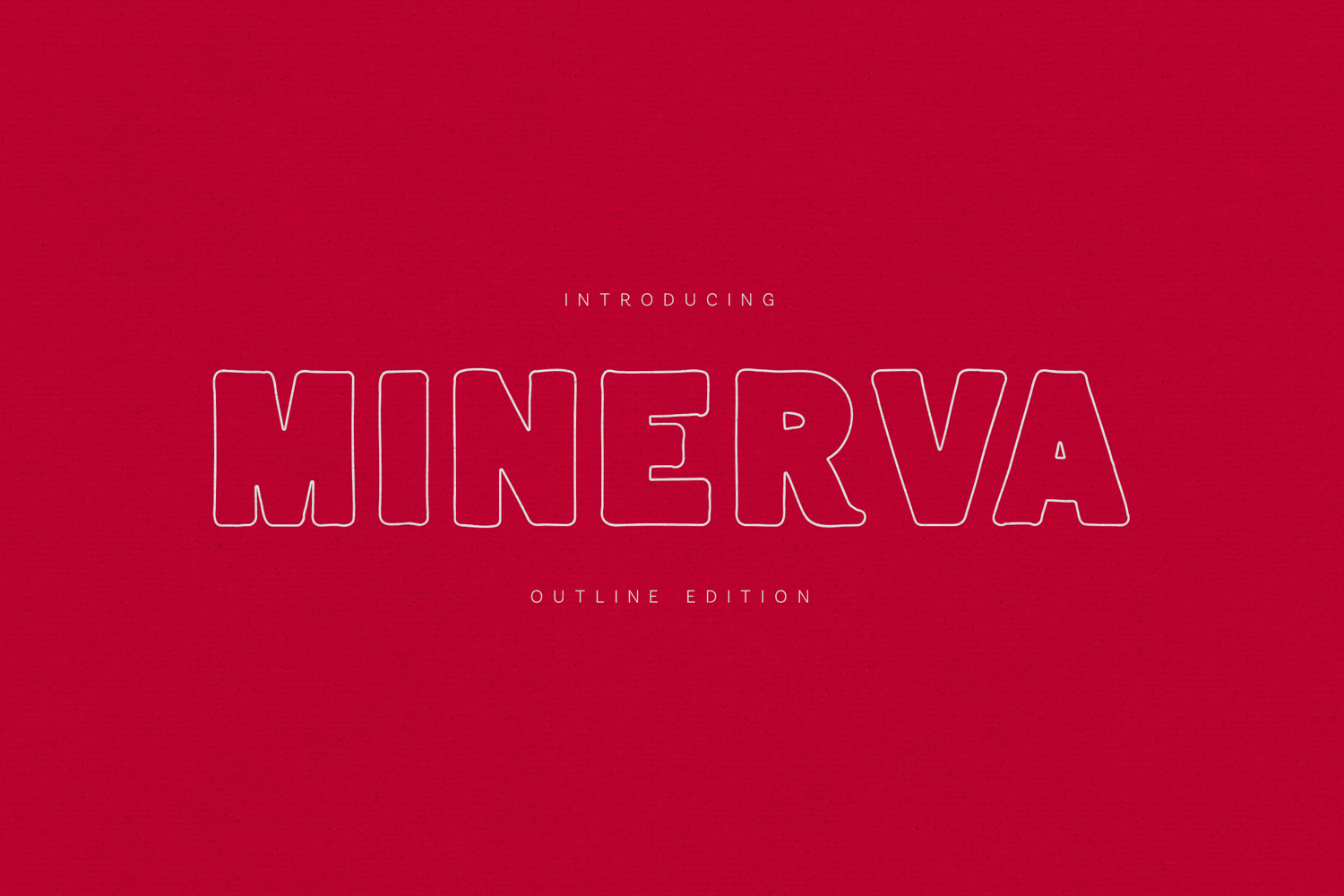
Minerva Bold Outline Display Font
Minerva is a bold outline display font designed to bring character, energy, and a modern handcrafted feel to typography. With thick outlines, rounded shapes, and a confident presence, Minerva delivers a playful yet structured visual voice that stands out instantly.
The Outline Edition emphasizes form over fill, giving the font a light, airy, and graphic quality while maintaining strong readability. Its soft edges and imperfect contours add warmth and personality, making it ideal for expressive headlines and creative layouts.
Minerva is perfect for posters, branding, packaging, apparel, social media graphics, children’s projects, and modern editorial design. It works especially well at large sizes, where its outline construction and bold proportions truly shine.
The font includes a full character set with extensive multilingual support, numerals, punctuation, and symbols—ready for both print and digital use across creative platforms.
- Posters & Headlines
- Branding & Visual Identity
- Packaging & Labels
- Apparel & Merchandise
- Social Media Graphics
- Editorial & Creative Projects
- Playful Typography Systems